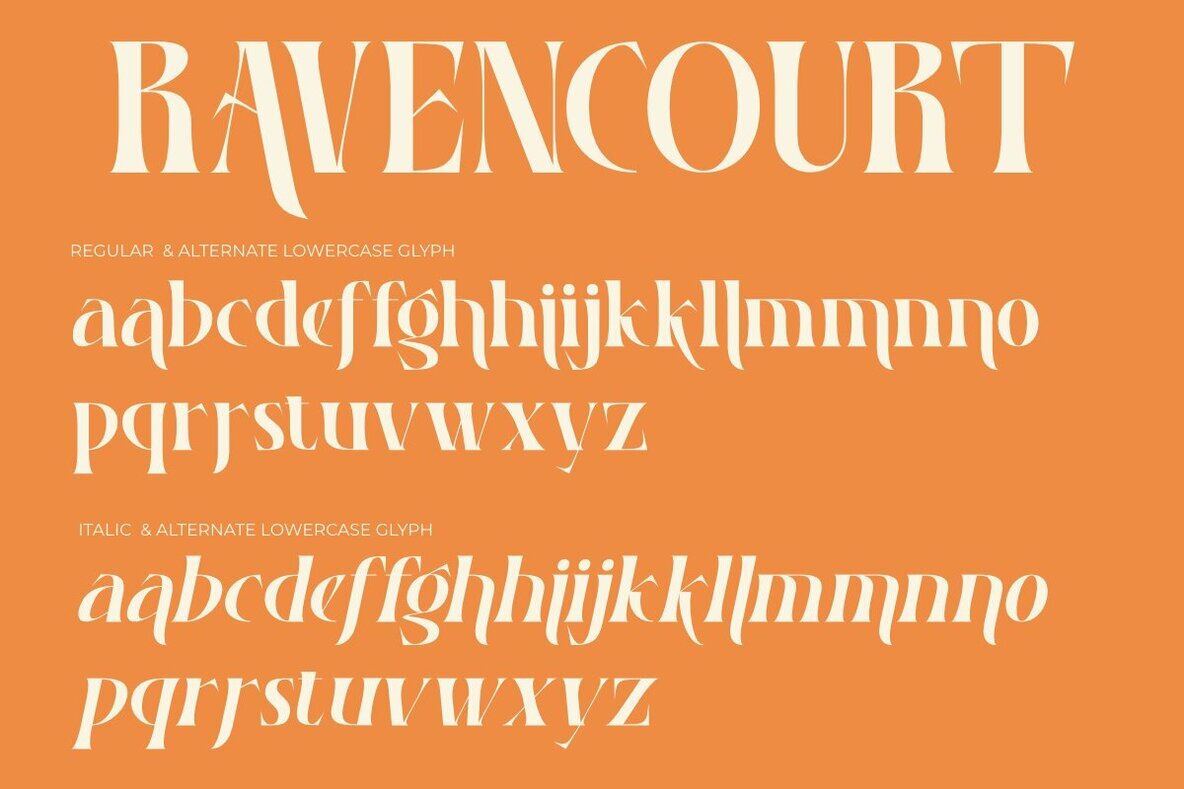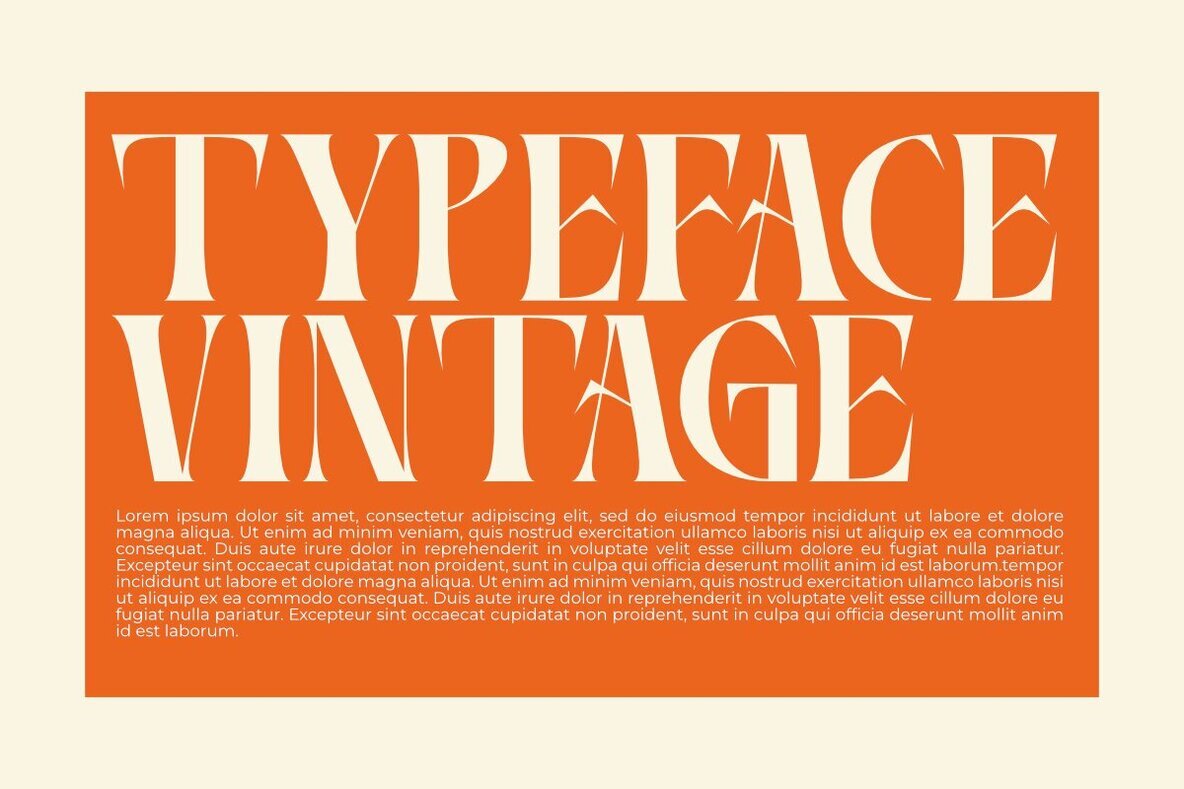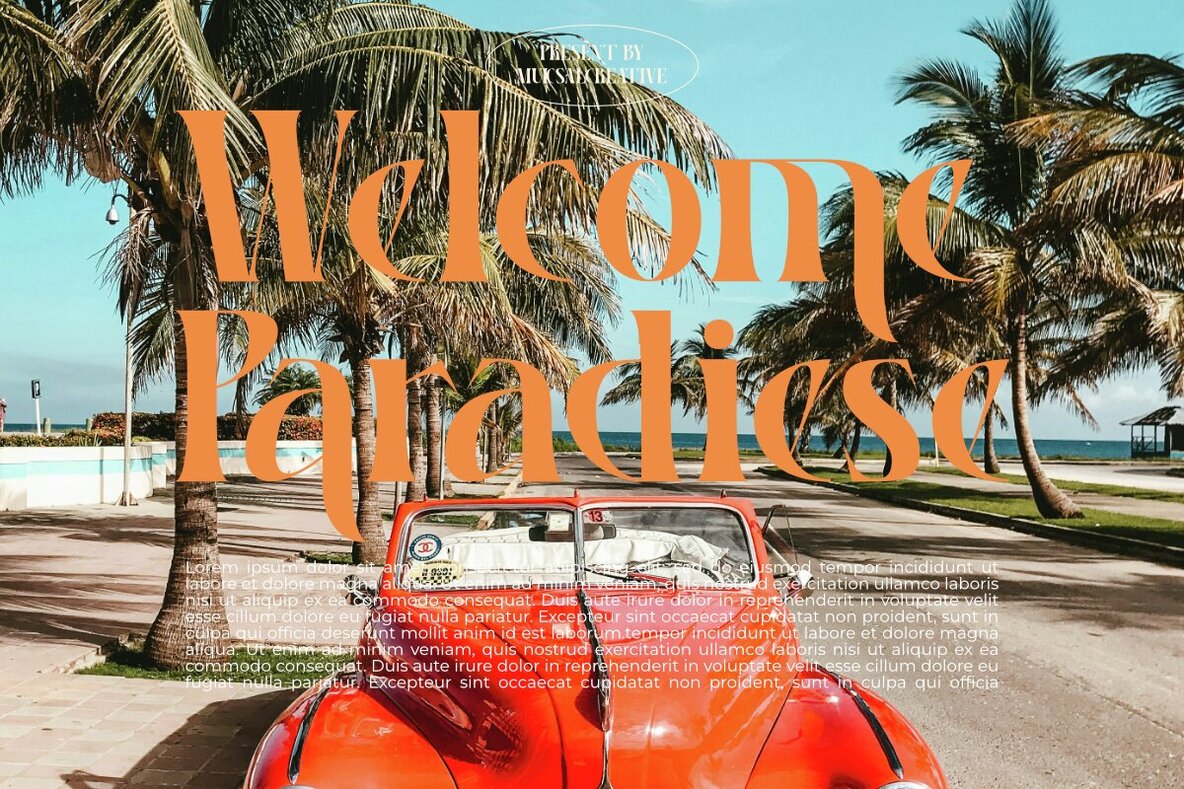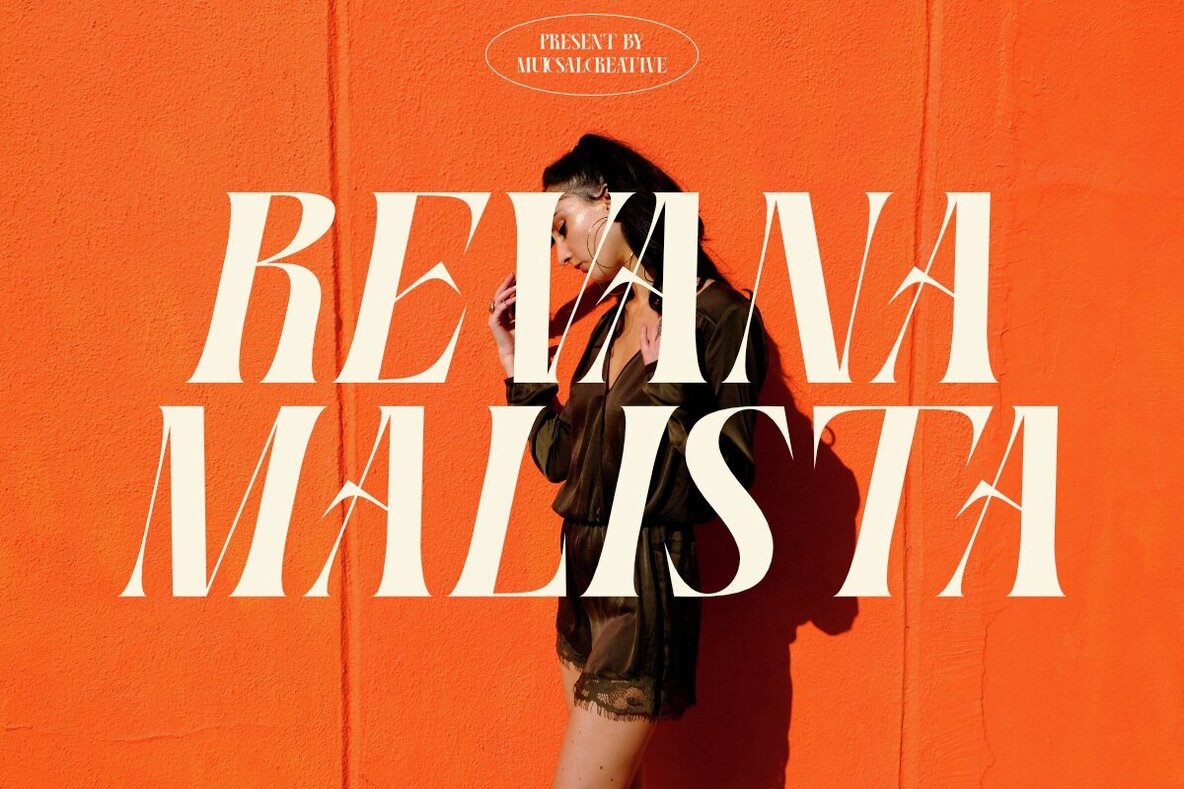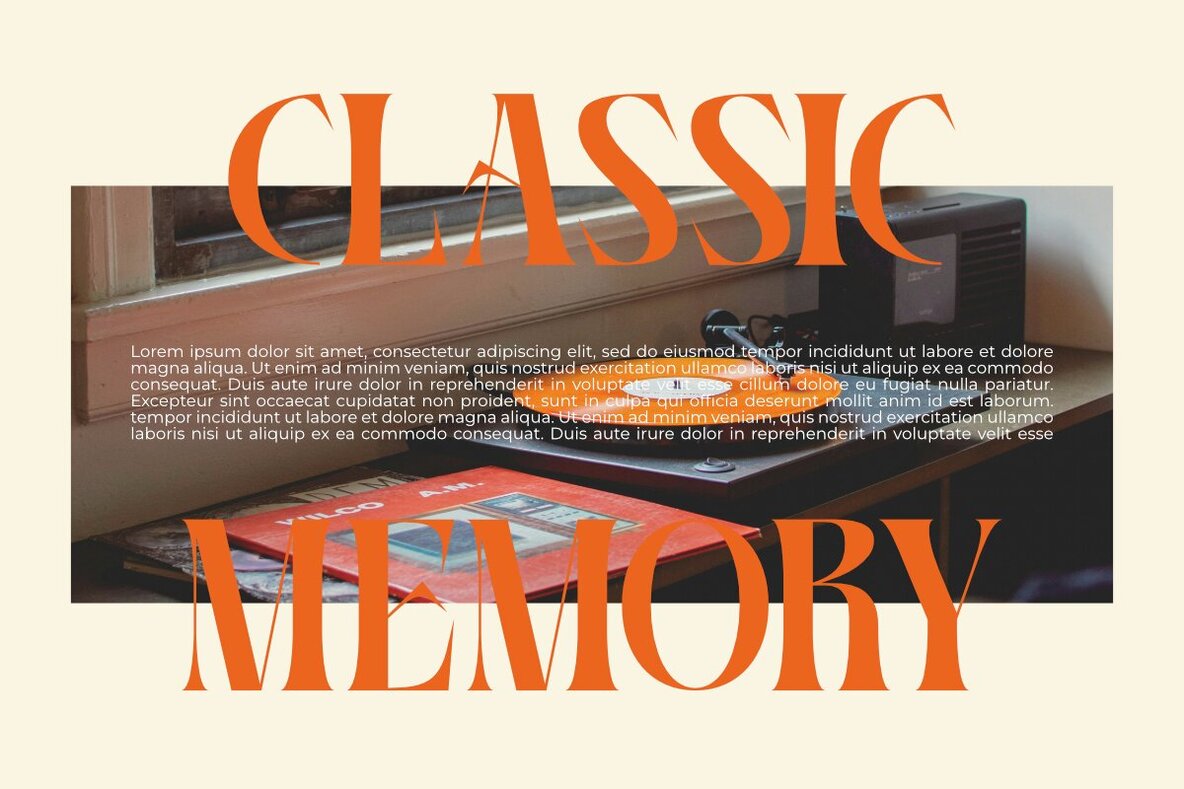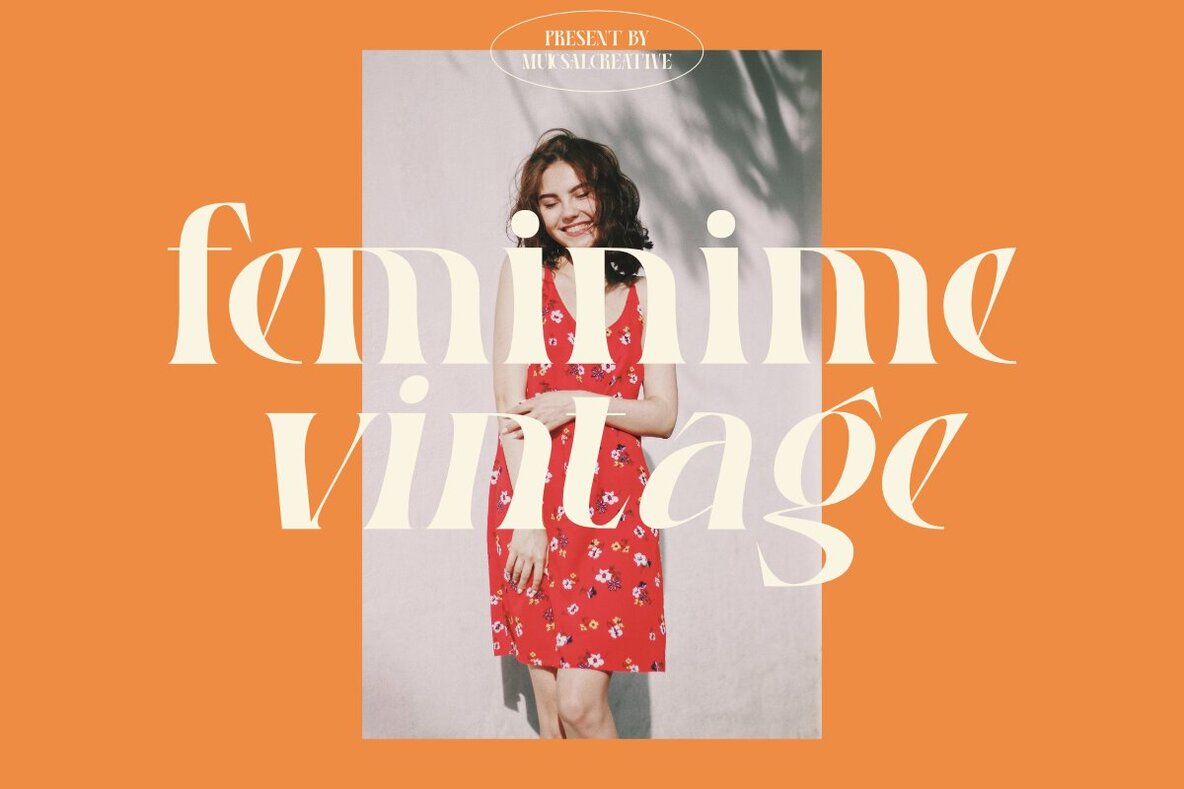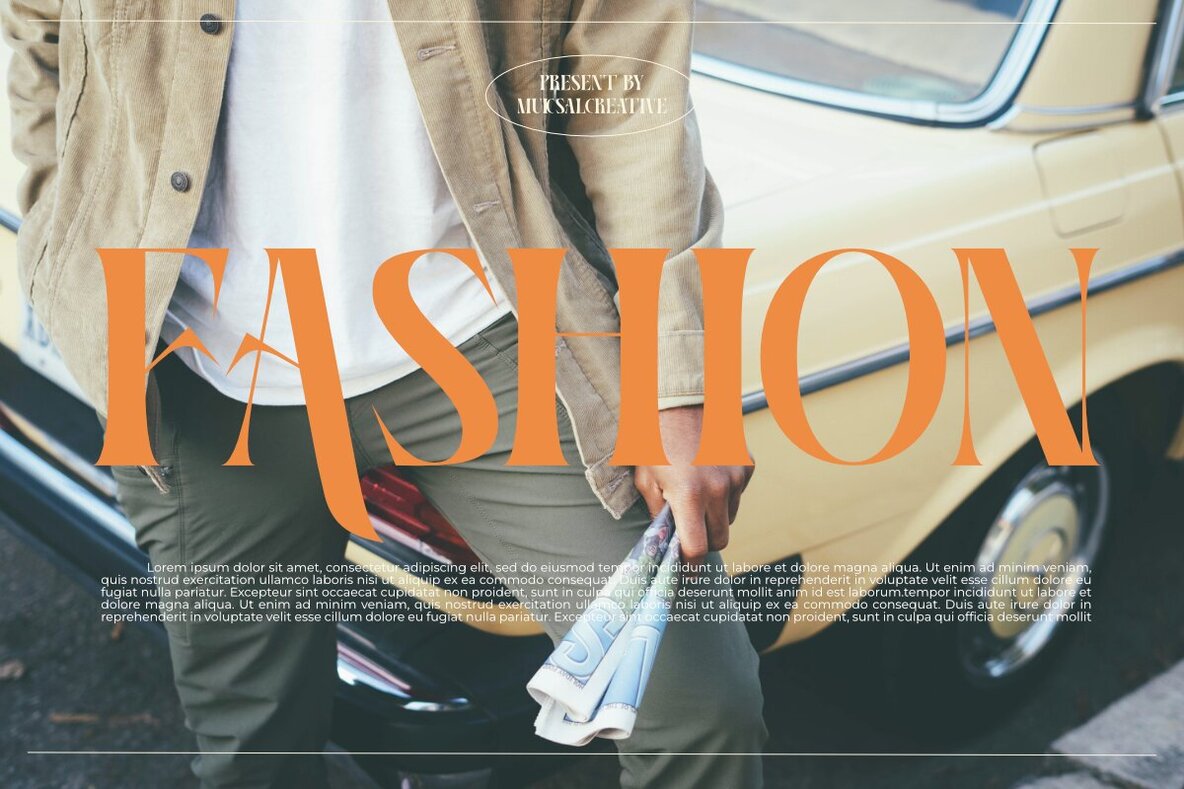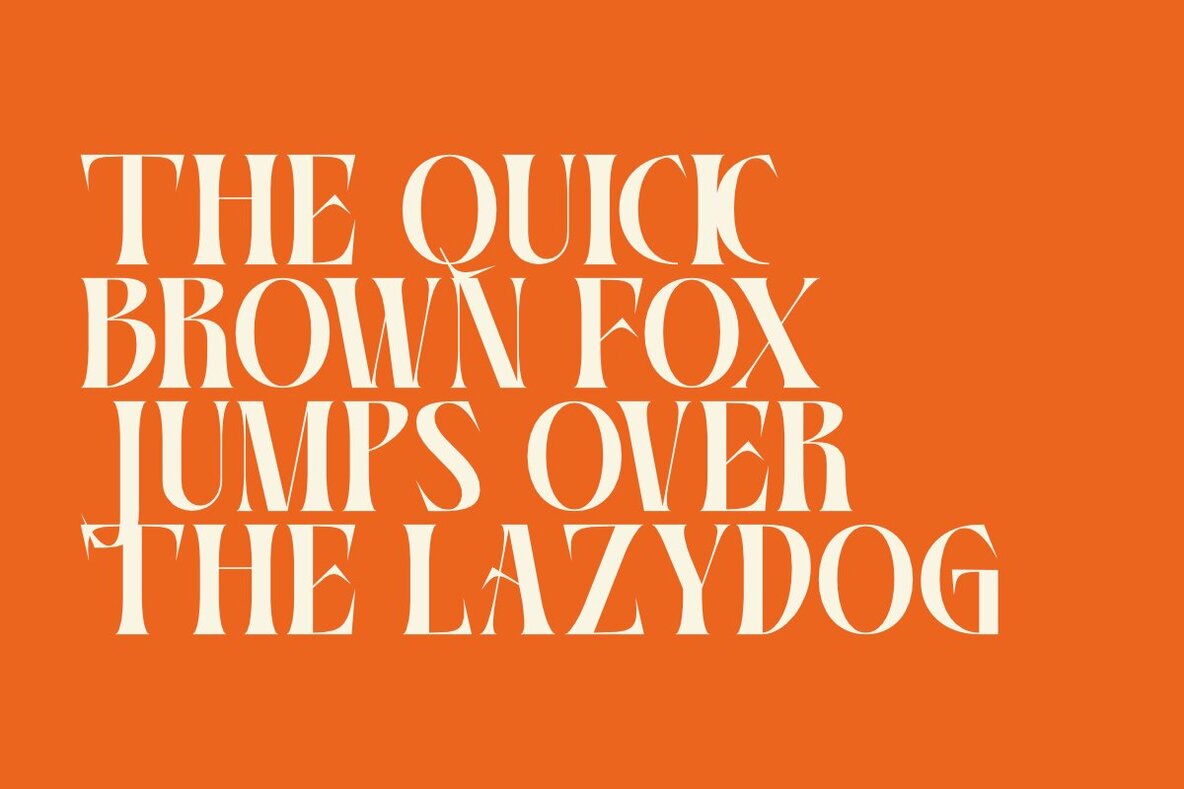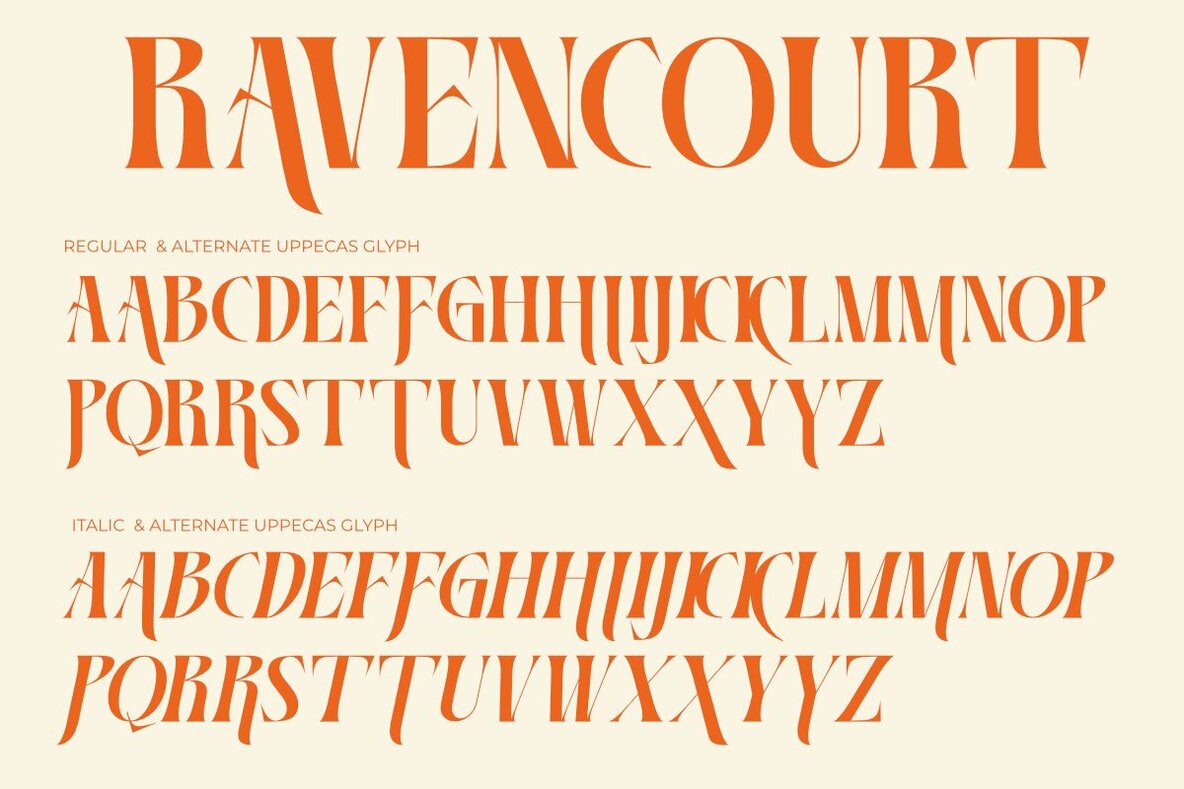
Revencourt Font
Ravencourt: Elegance Meets Theatrical Flair
Ravencourt is a high-contrast display serif font that combines elegance, drama, and timeless sophistication. With sharp terminals and graceful curves, it infuses a strong theatrical flair with classic refinement. Perfect for luxury branding, editorial layouts, book covers, and striking headlines, Ravencourt also excels in retro and vintage-themed designs with its unique letterforms and nostalgic charm. Offered in Regular and Italic styles, it provides flexibility and an expressive range for diverse creative projects. Whether in uppercase or mixed case, Ravencourt makes a bold and memorable statement in any composition.
Features:
• Uppercase & lowercase
• Multilingual support
• Alternates & ligatures (ss01 stylistic set)
• Punctuation & symbols